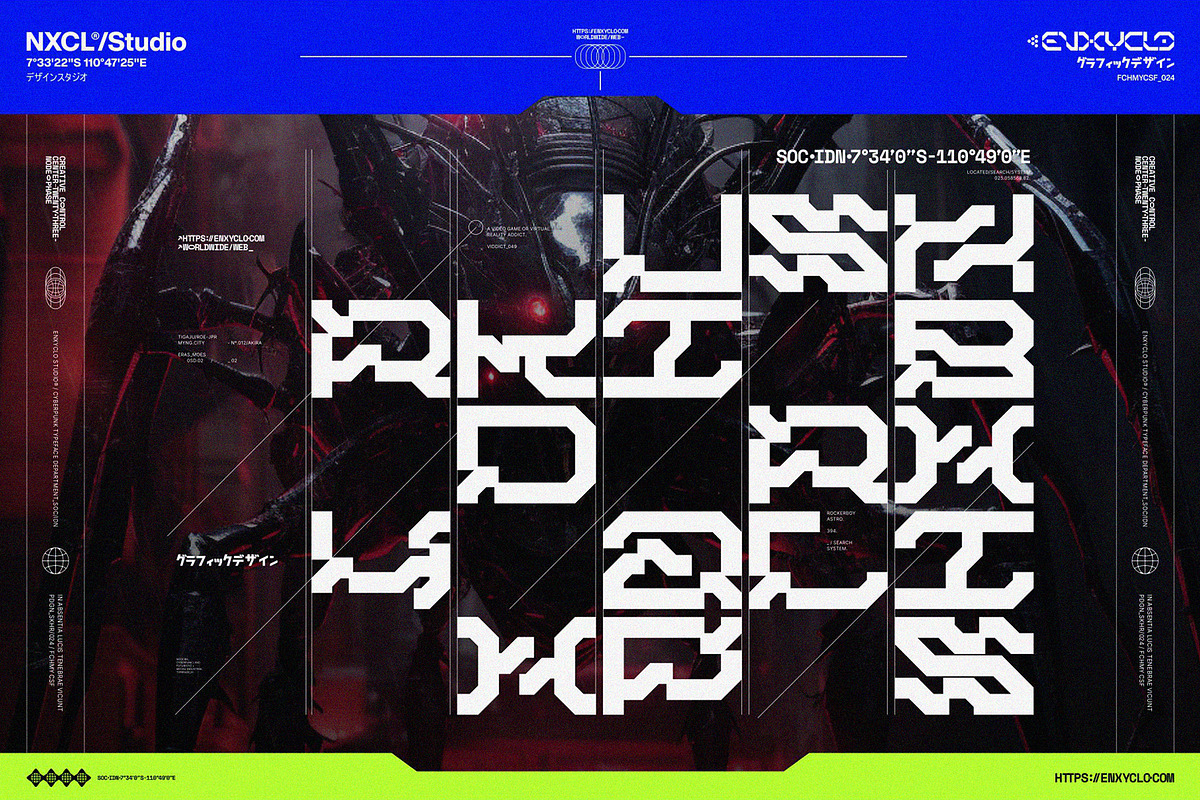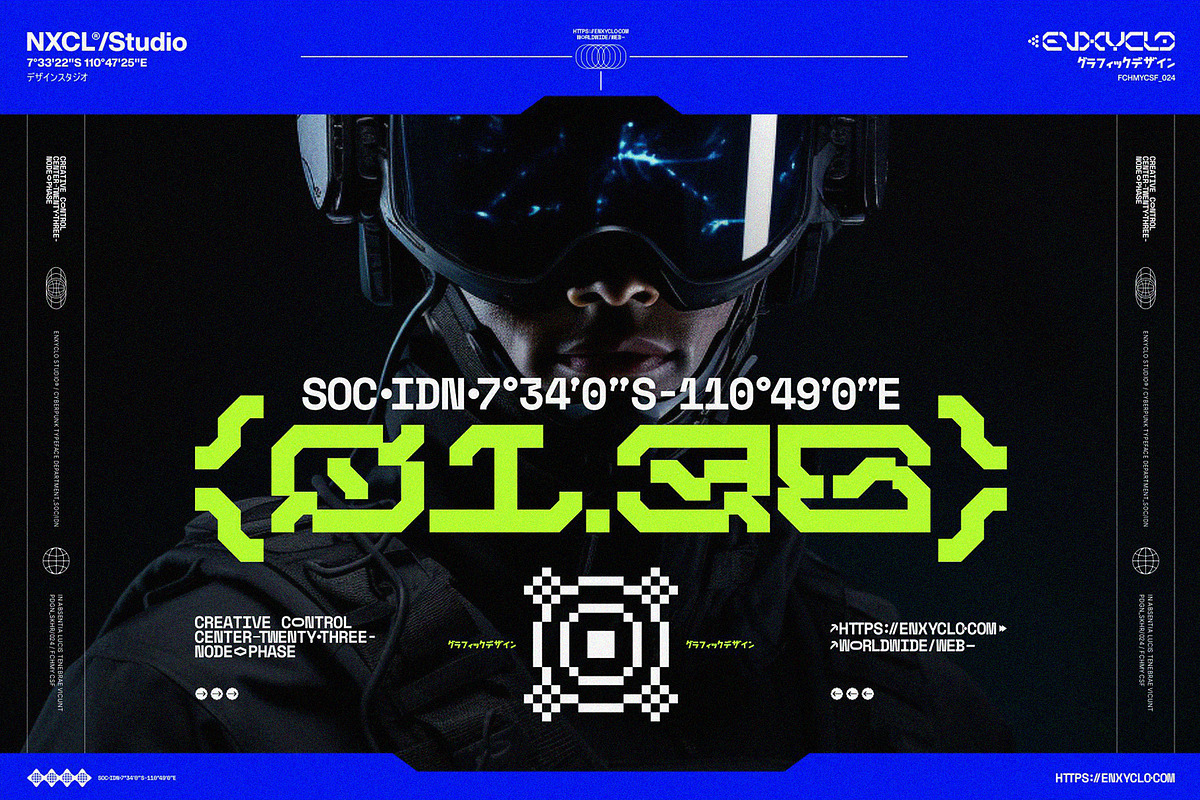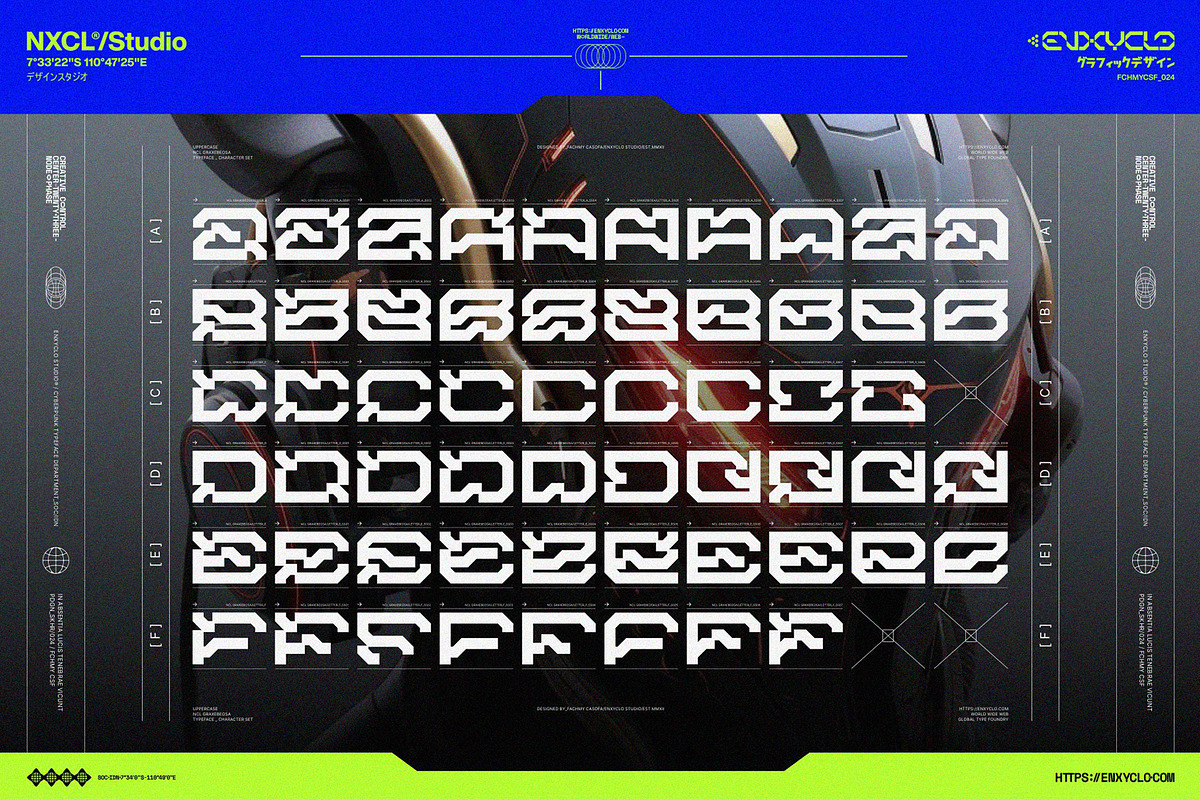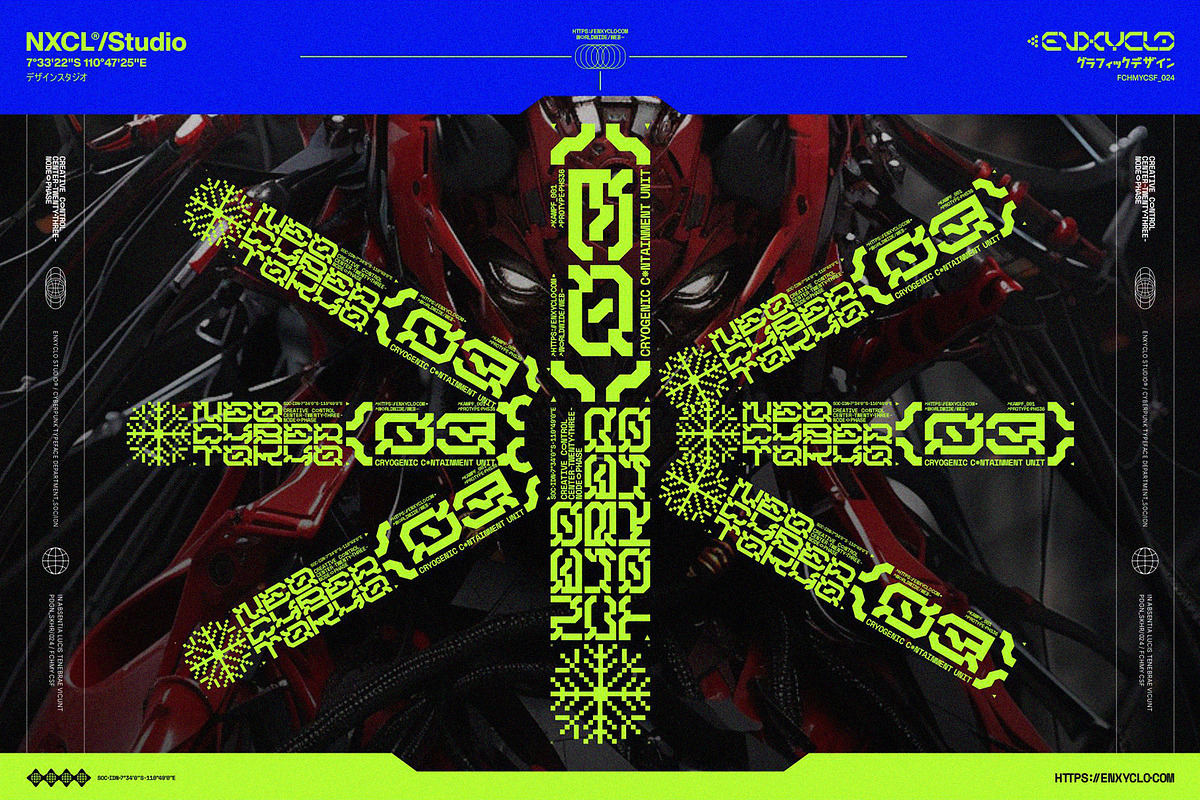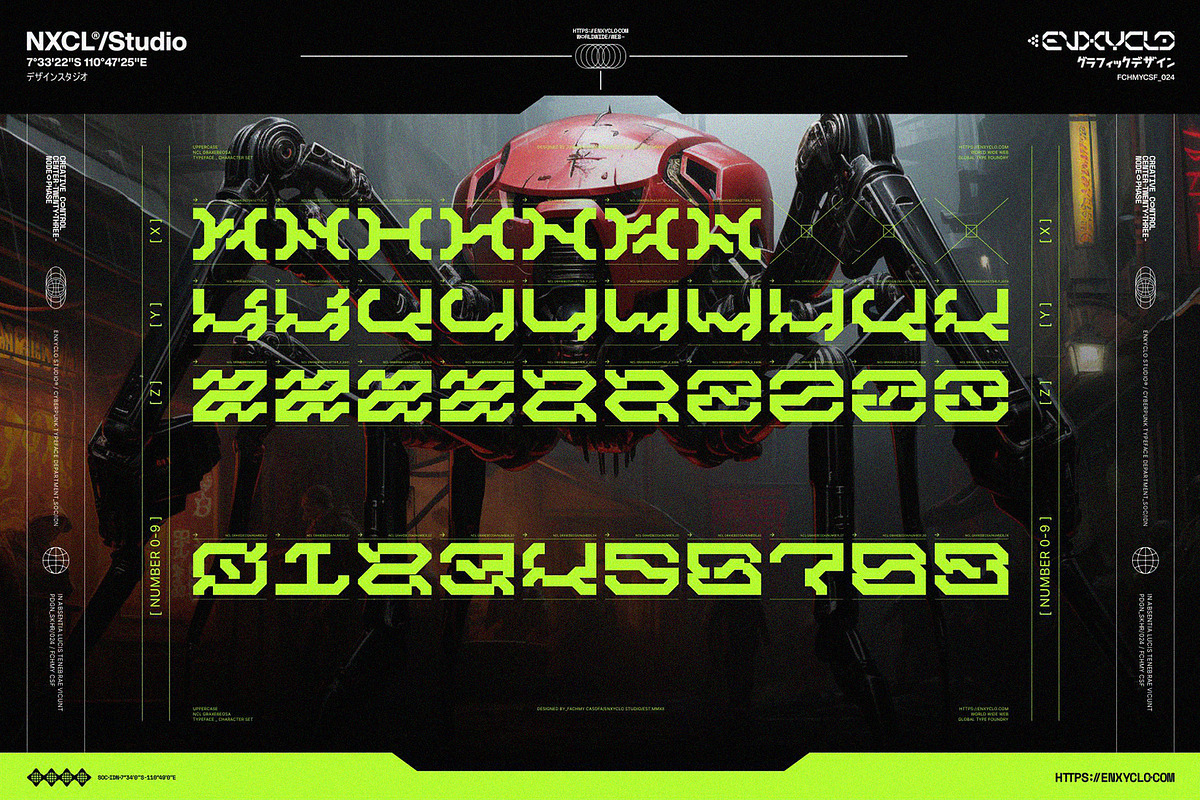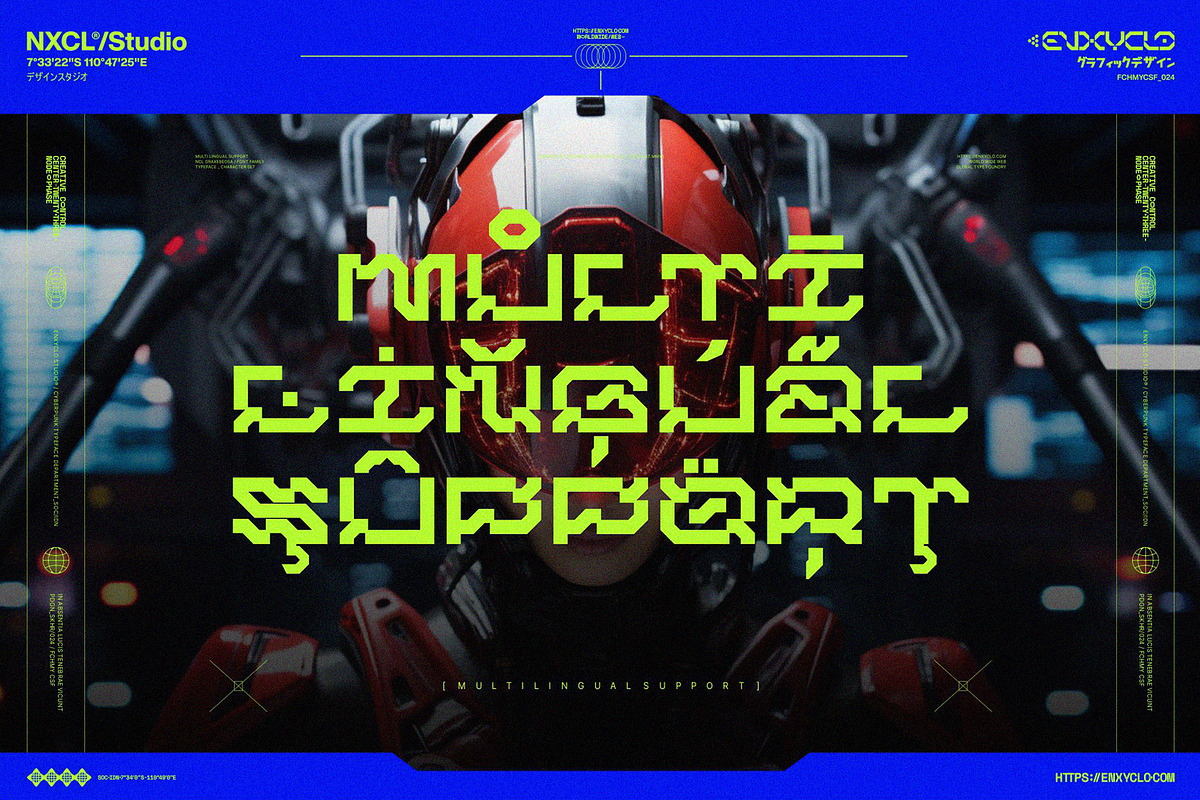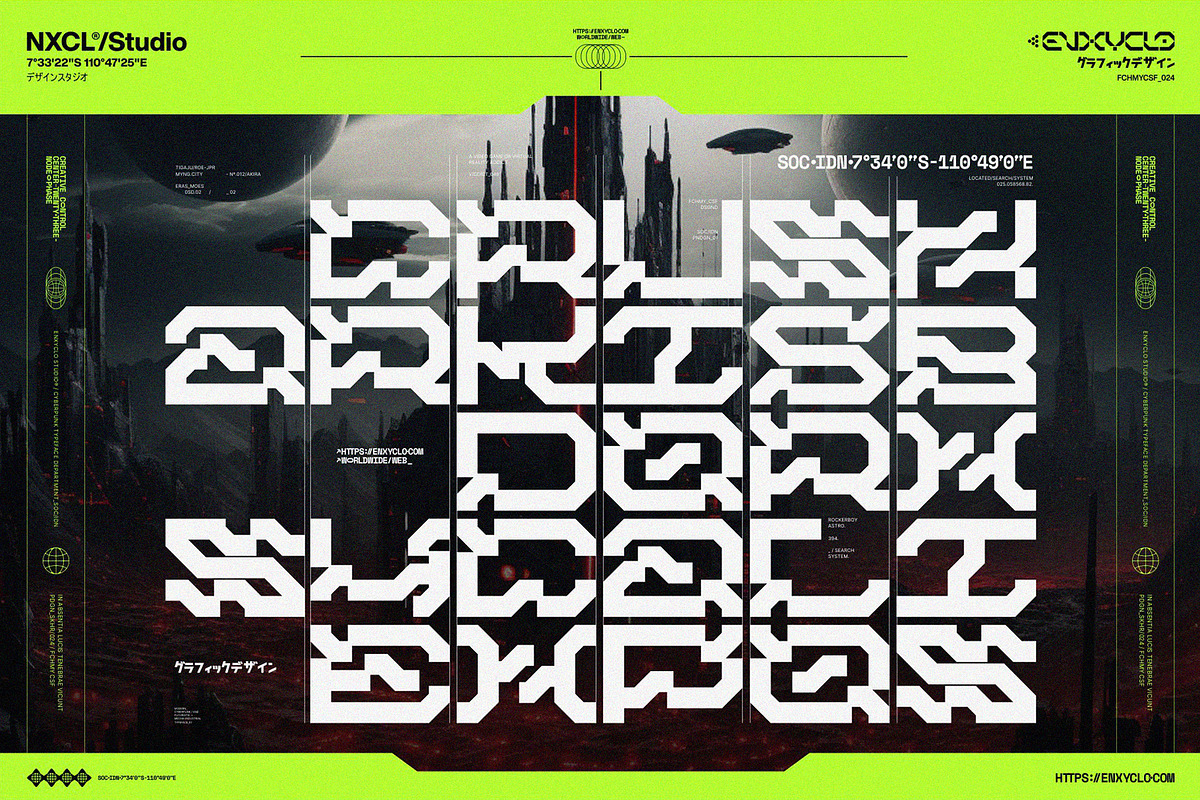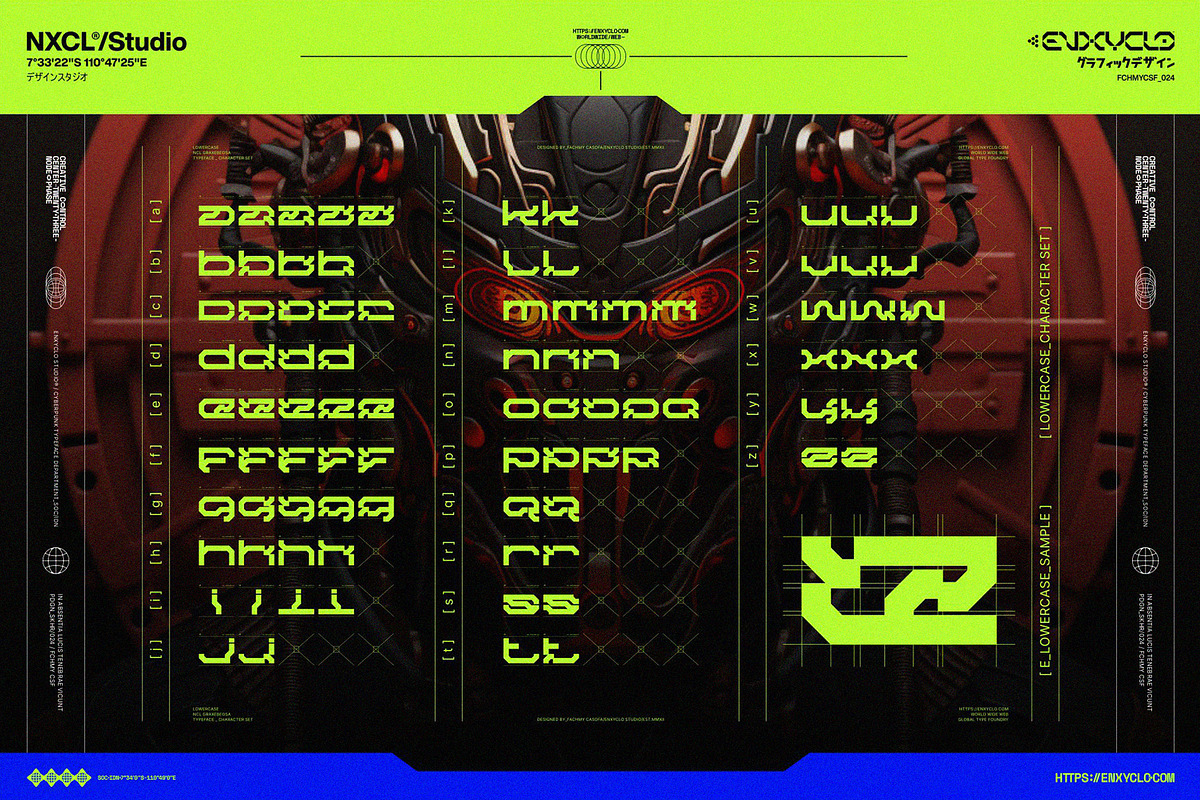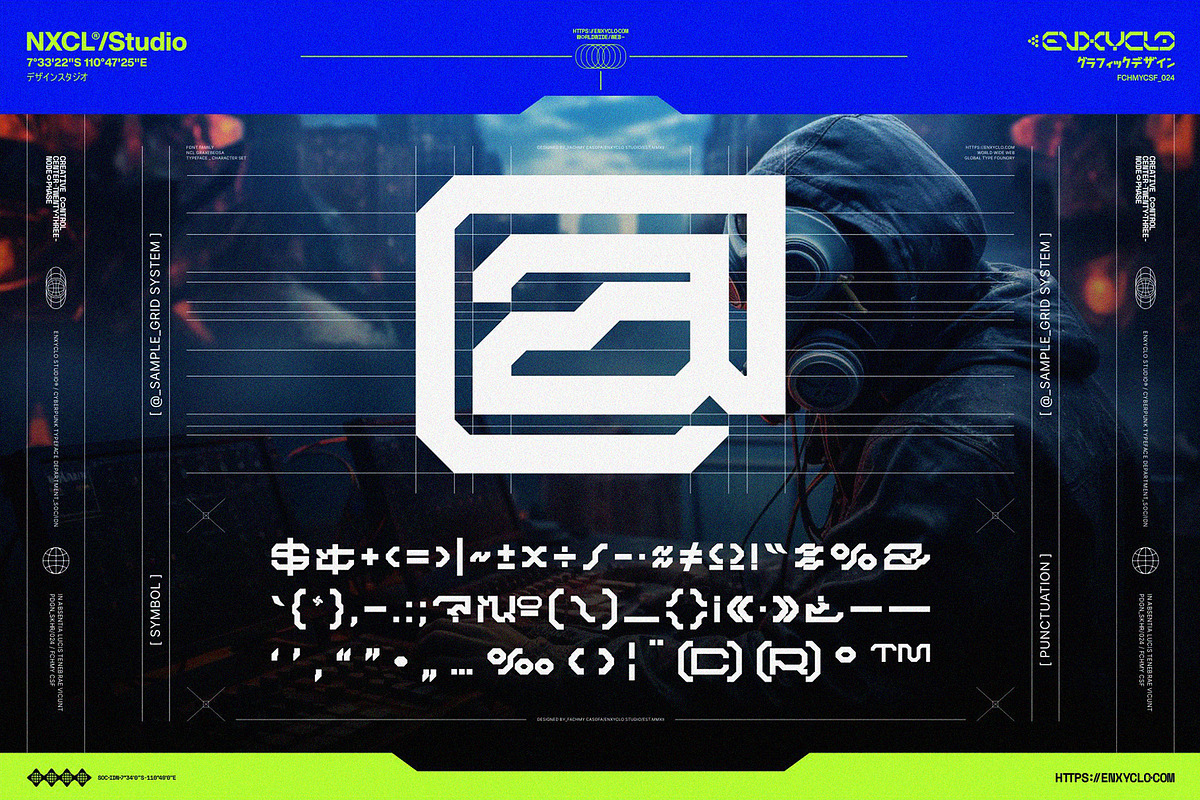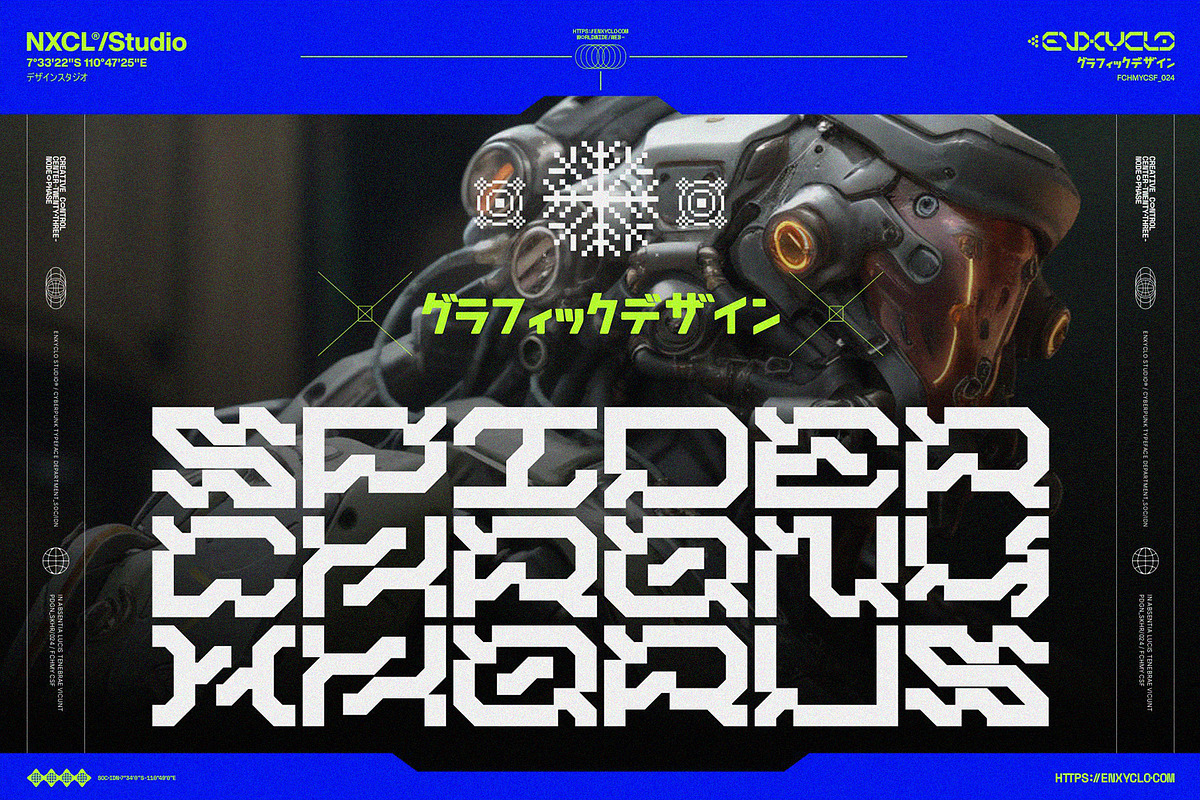
NCL Graxebeosa Font Family
NCL Graxebeosa font family is not your ordinary font. It’s a modern cyberpunk futuristic techno mecha font that takes your creativity to the next level. Its futuristic aesthetics bring a whole new dimension to your designs, making them stand out. Whether you’re working on a website, poster, logo, or any other project, this font adds that extra touch of innovation and sophistication.
FONT FAMILY
- NCL Graxebeosa Regular
- NCL Graxebeosa Normal
- NCL Graxebeosa Slanted
- NCL Graxebeosa Outline
- NCL Graxebeosa Outline Slanted
- NCL Graxebeosa Expanded
- NCL Graxebeosa Expanded Normal
- NCL Graxebeosa Expanded Slanted
- NCL Graxebeosa Expanded Outline
- NCL Graxebeosa Expanded Outline Slanted
- 608 Glyphs for Each Style in Regular
- 608 Glyphs for Each Style in Expanded
- 4864 Total Glyphs (for Regular and Expanded)
- Stylistic Set 1-9
- Numeral, Punctuation & Symbols